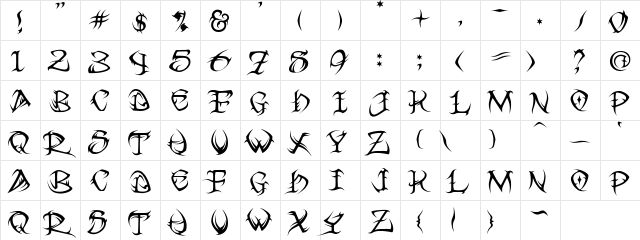
VTC Tribal Regular
| Designer | WolfBainX |
Design Context for VTC Tribal Typeface
VTC Tribal is a composed and adaptable typeface that performs quietly and consistently across a wide range of design contexts.